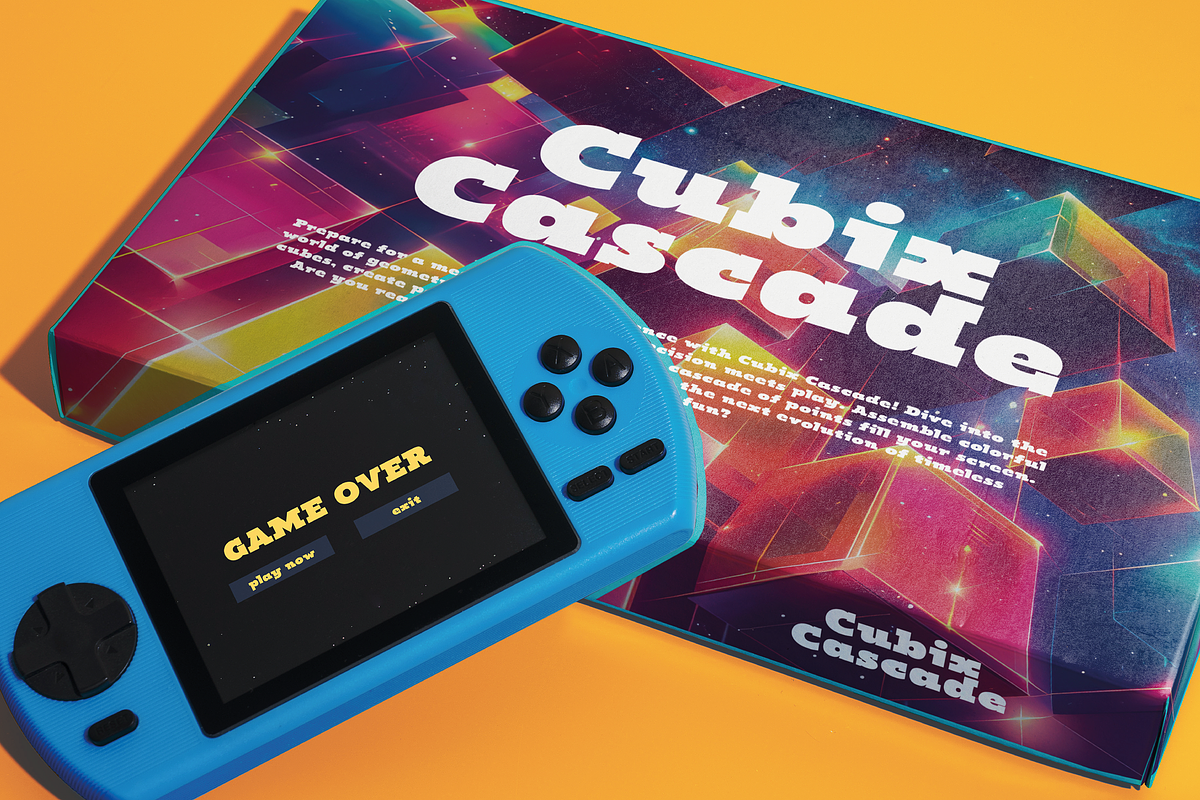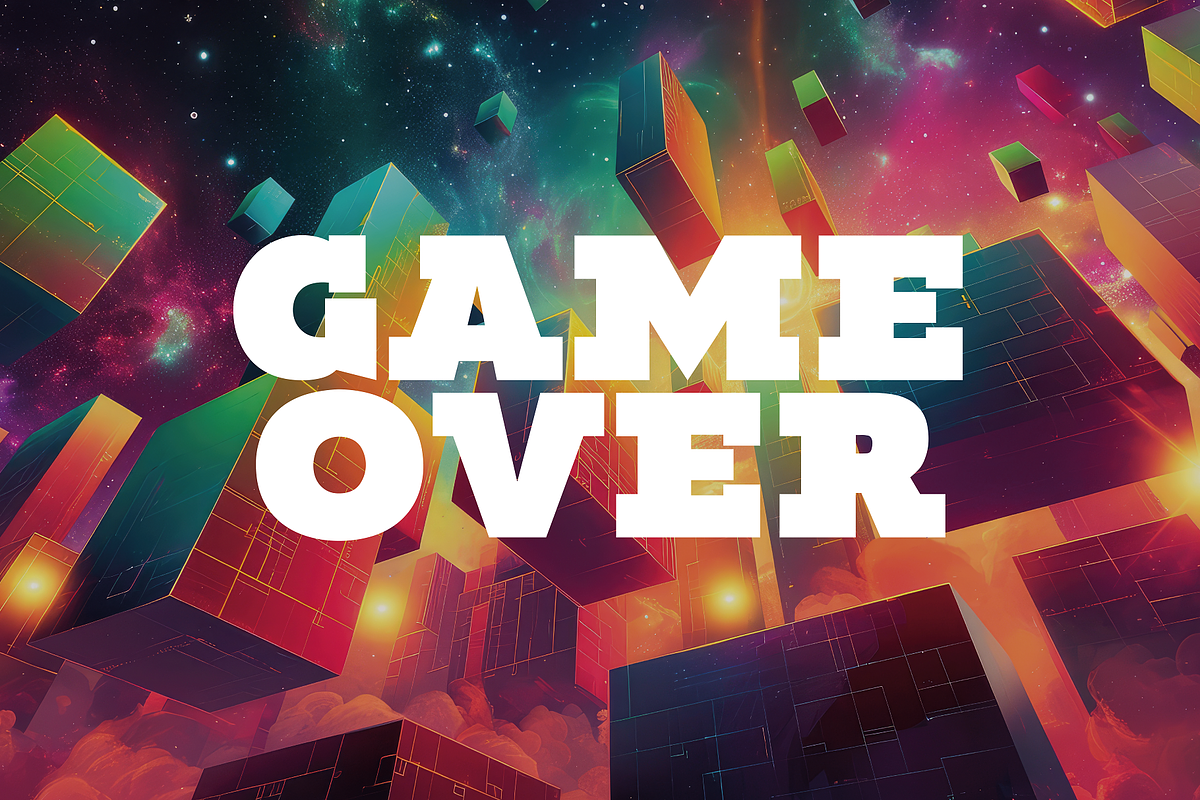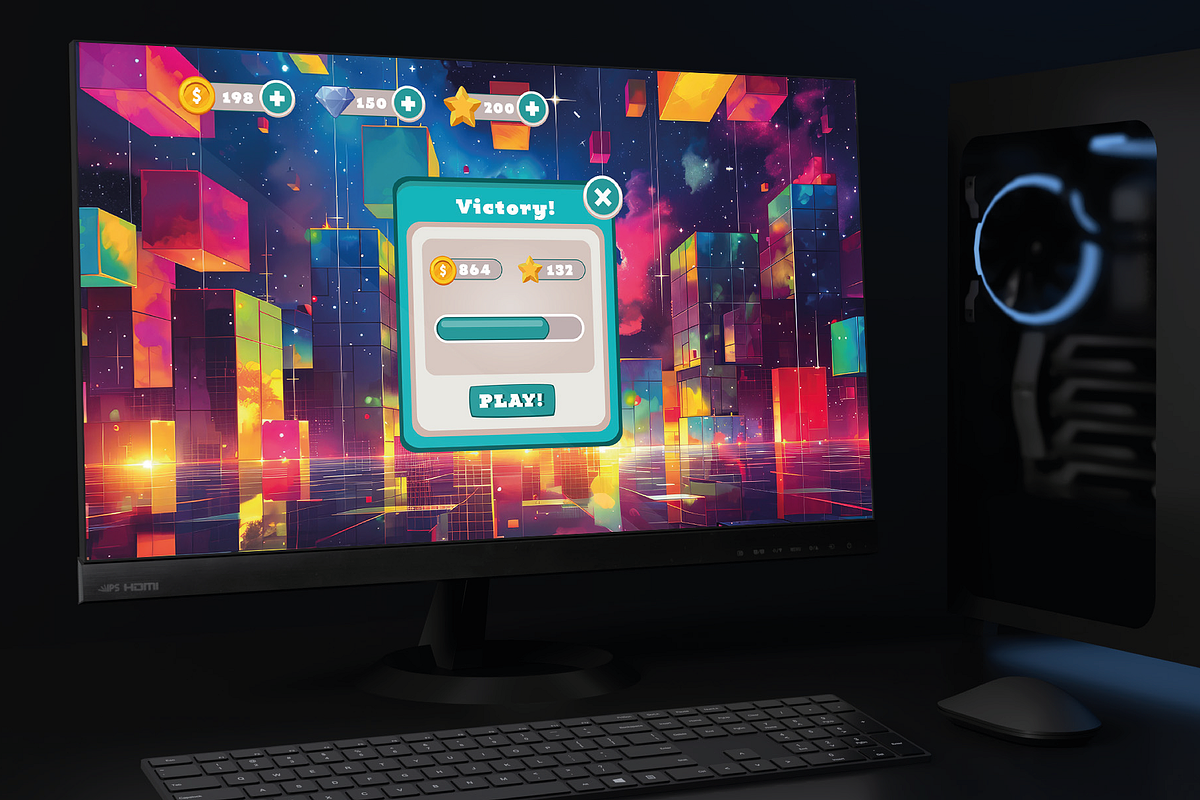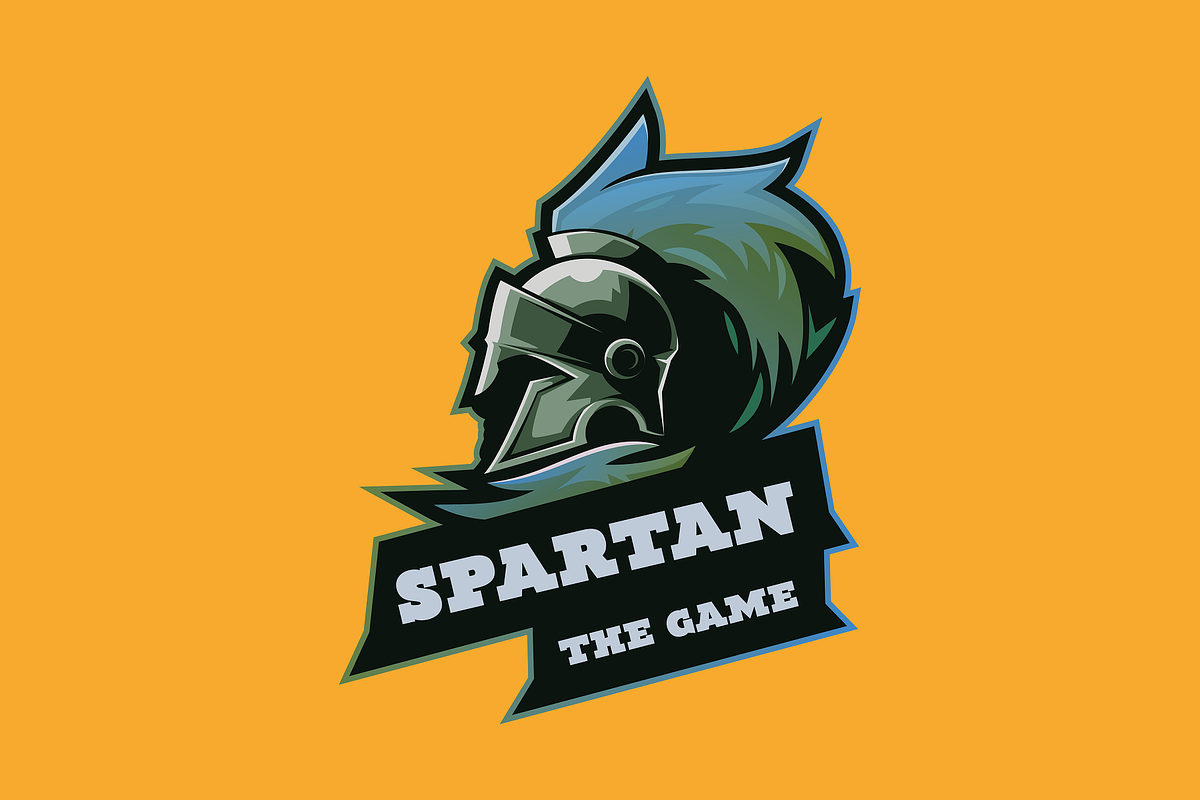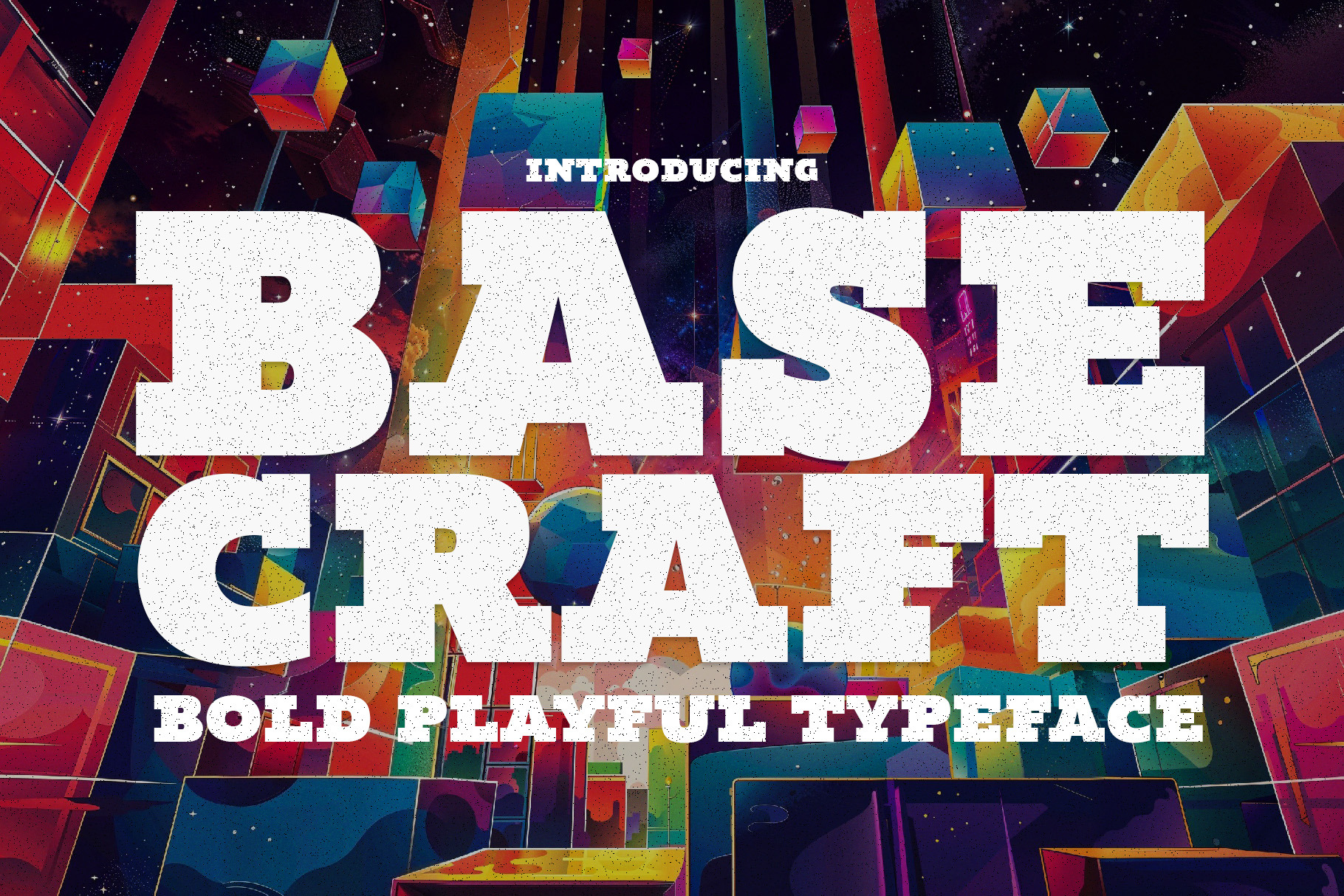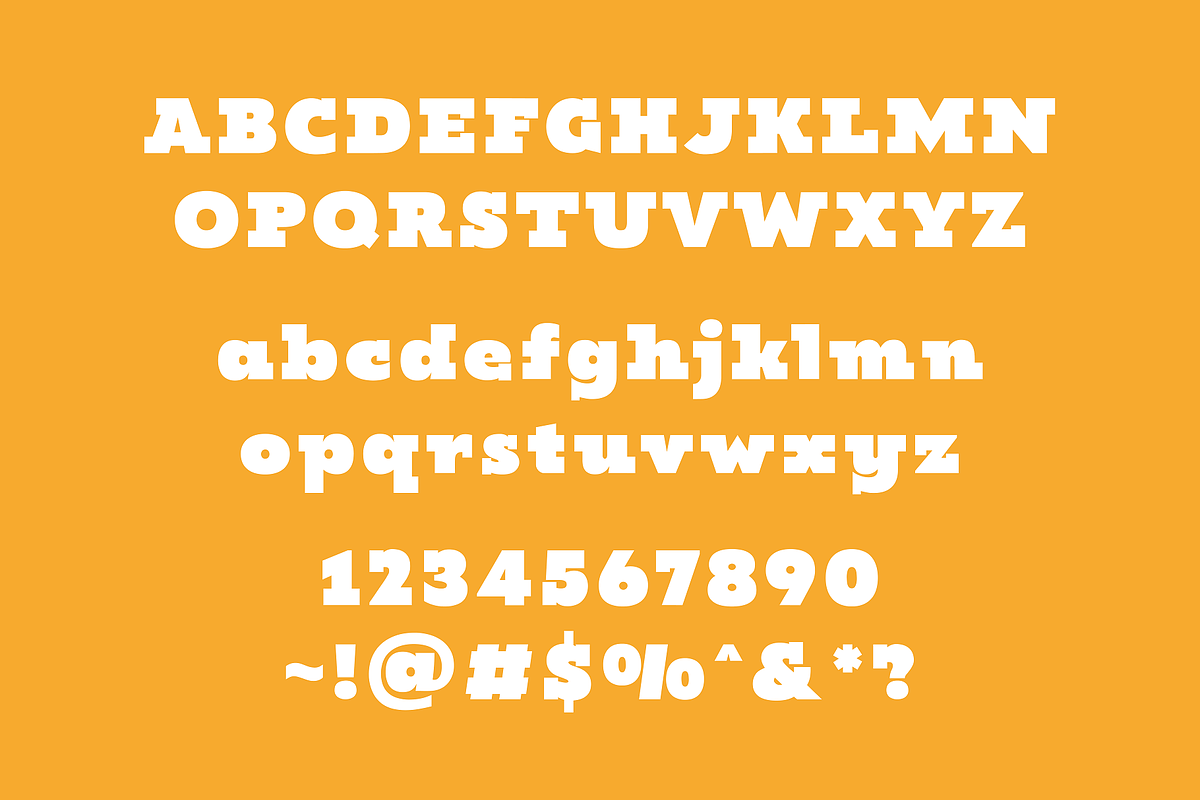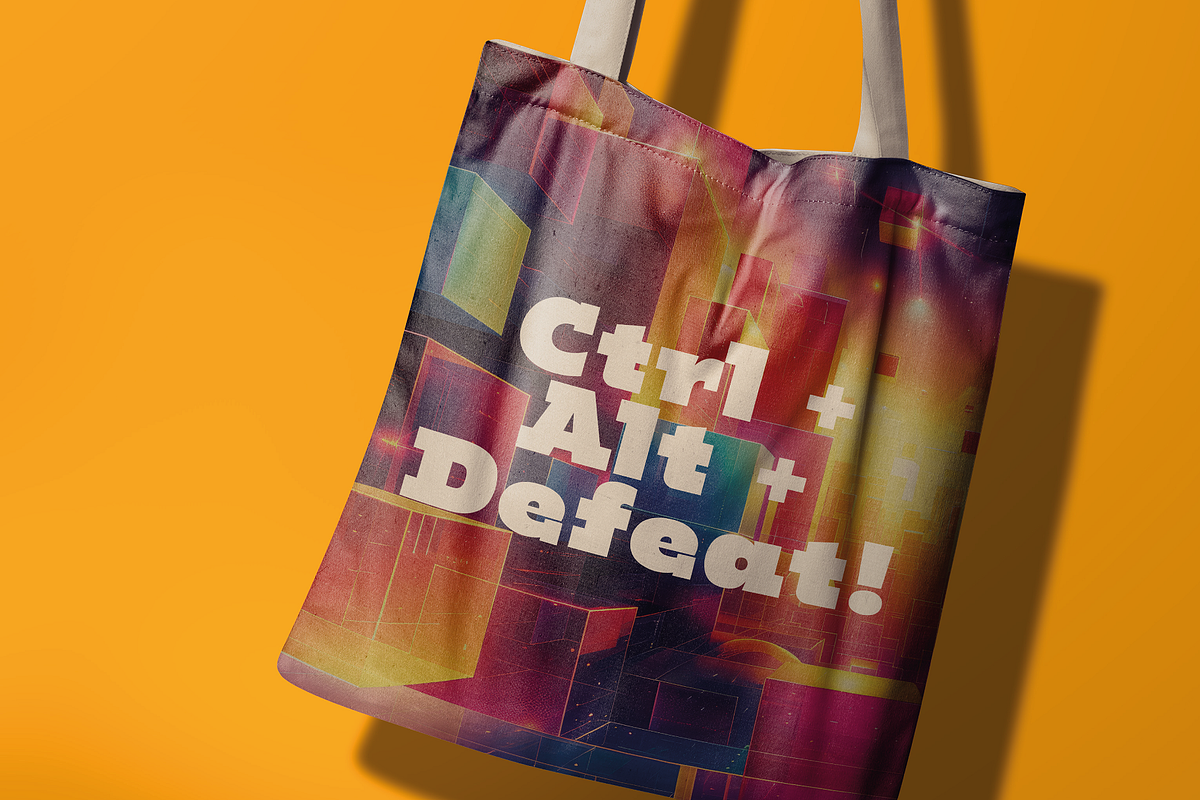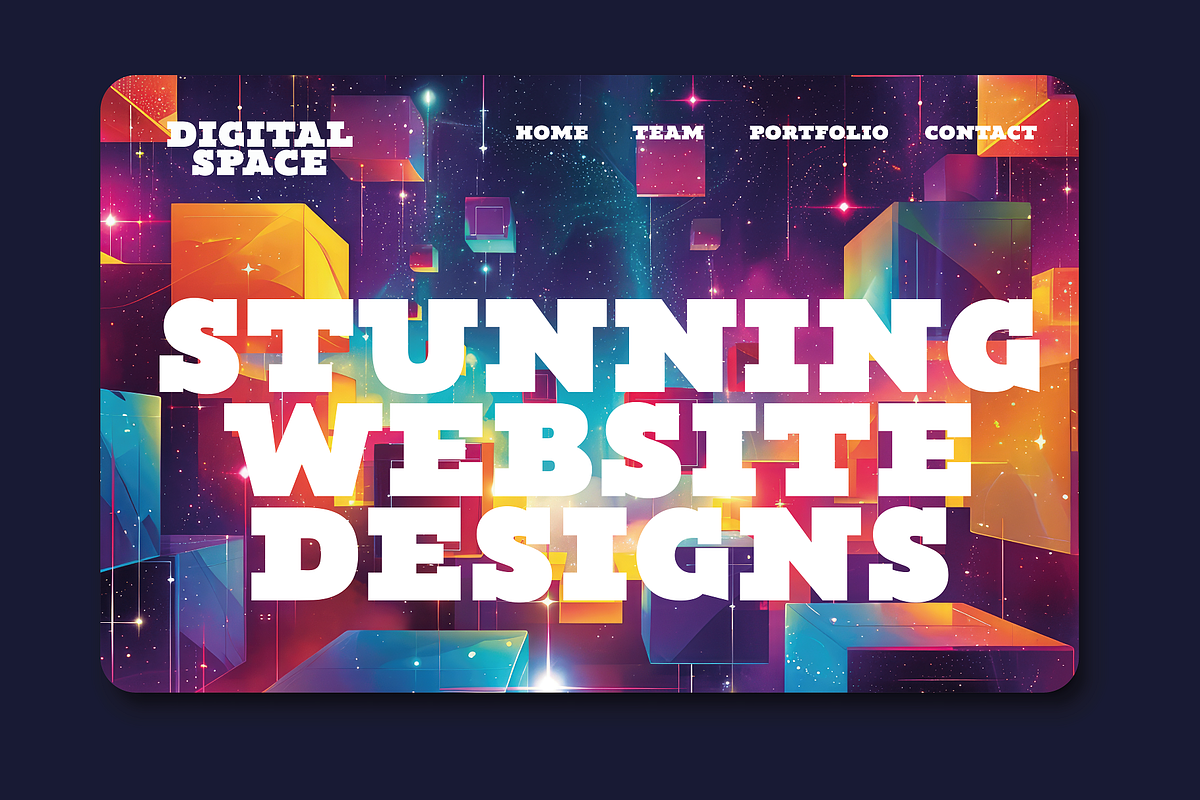
Base Craft - Bold & Playful Typeface
Base Craft is a vibrant, thick, bold, and playful typeface designed to make a statement in any creative project. This font stands out for its solid, hefty character forms that convey strength and stability, while its playful touches add a sense of fun and creativity. Its design strikes a perfect balance between impact and readability, making it an excellent choice for a wide range of applications, from eye-catching headlines to engaging social media posts.
Crafted with a keen eye for detail, Base Craft's boldness is not just in its weight but also in its character. The typeface features rounded edges that soften its overall appearance, making it approachable and friendly. This unique blend of boldness and playfulness makes it particularly suited for brands looking to project a strong yet inviting image.
Base Craft is highly versatile, ideal for branding, advertising, packaging, and children's literature, where its ability to capture attention while remaining fun and accessible can truly shine. Whether it's used for a logo, a festive banner, or a lively book cover, Base Craft adds a layer of warmth and dynamism to any design.
The typeface includes a comprehensive set of characters, including uppercase, lowercase, numerals, and punctuation, offering designers the flexibility to use it across various languages and contexts. Moreover, its distinct personality allows it to stand alone or complement other fonts in design projects that require a hierarchical or layered approach.
Embrace the bold and playful spirit of Base Craft, and let your designs resonate with energy, strength, and a touch of whimsy. Whether creating for a modern brand, a dynamic advertising campaign, or innovative packaging, Base Craft is the go-to typeface for making a robust and lively statement.